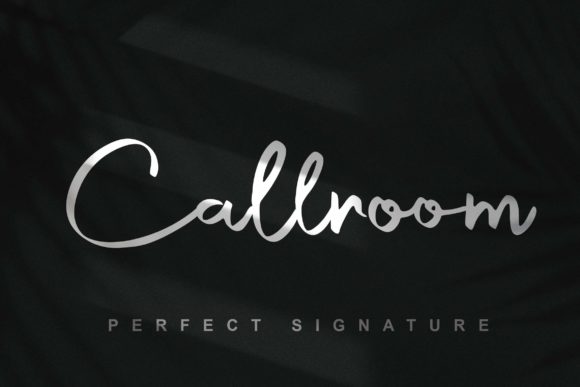
Introducing Callroom Font: Elevate Your Designs with Elegance
Are you on the hunt for a font that exudes elegance and sophistication? Look no further than Callroom Font, a stunning flowing handwritten font that is sure to capture your heart. With its incredibly distinct and timeless style, Callroom is perfect for designers and crafters looking to add a touch of luxury to their projects.
The Characteristics of Callroom Font
Callroom Font is described by its elegant touch, which sets it apart from other fonts in its category. Its flowing lines and curves create a sense of movement and fluidity, making it perfect for designs that require a sense of dynamism. The font’s unique style is both classic and modern, making it versatile enough to be used in a wide range of projects, from wedding invitations to branding and packaging.
What Makes Callroom Font Special?
One of the standout features of Callroom Font is its PUA (Private Use Area) encoding. This means that you can access all of the glyphs and swashes with ease, giving you complete creative control over your designs. With PUA encoding, you can effortlessly navigate the font’s extensive character set, including ligatures, alternates, and ornaments, to create truly spectacular designs.
Callroom Font is incredibly versatile and can be used in a wide range of projects, including:
- Branding and packaging
- Digital graphics and social media assets
Why Choose Callroom Font?
With so many fonts available, why choose Callroom Font? Here are just a few reasons:
- Elegant and sophisticated style: Callroom Font’s unique style is sure to elevate your designs and give them a professional finish.
- Highly versatile: With its PUA encoding and extensive character set, Callroom Font can be used in a wide range of projects and applications.
- Easy to use: Callroom Font is incredibly easy to use, even for designers and crafters with limited font experience.
- Timeless appeal: Callroom Font’s classic style ensures that it will remain relevant and stylish for years to come.
Tips for Using Callroom Font
To get the most out of Callroom Font, here are a few tips:
- Experiment with different sizes and styles: Callroom Font looks great in a variety of sizes and styles, so don’t be afraid to experiment and find the perfect combination for your project.
- Use it with contrasting fonts: Pair Callroom Font with contrasting fonts to create visual interest and add depth to your designs.
- Take advantage of PUA encoding: With PUA encoding, you can access all of the glyphs and swashes with ease, so be sure to explore the font’s extensive character set.
In conclusion, Callroom Font is a stunning flowing handwritten font that is sure to capture your heart. With its elegant touch, incredibly distinct and timeless style, and PUA encoding, it’s perfect for designers and crafters looking to add a touch of luxury to their projects. Whether you’re working on a wedding invitation, branding project, or crafting DIY project, Callroom Font is sure to elevate your designs and give them a professional finish.
Get Ready to Fall in Love with Callroom Font
So why wait? Fall in love with Callroom Font today and discover a world of creative possibilities. With its timeless appeal, versatility, and ease of use, Callroom Font is sure to become a favorite in your design arsenal.